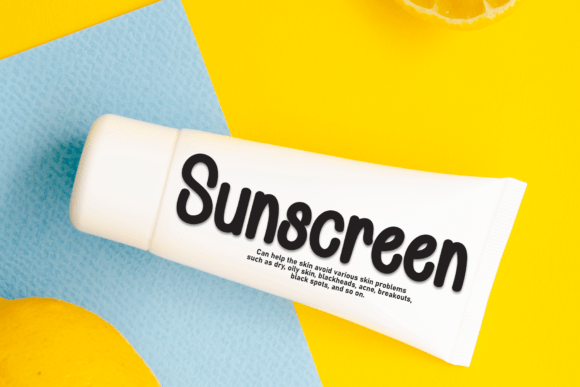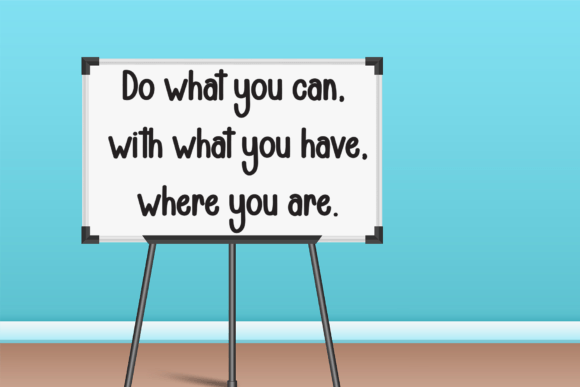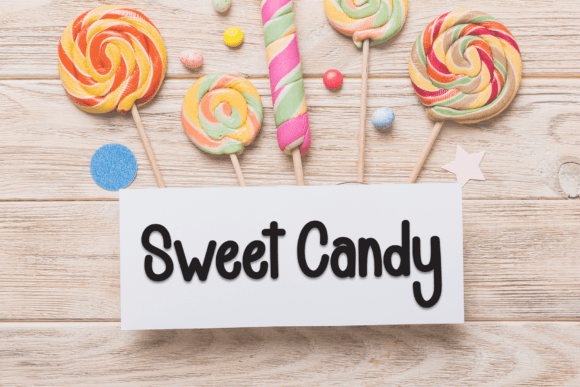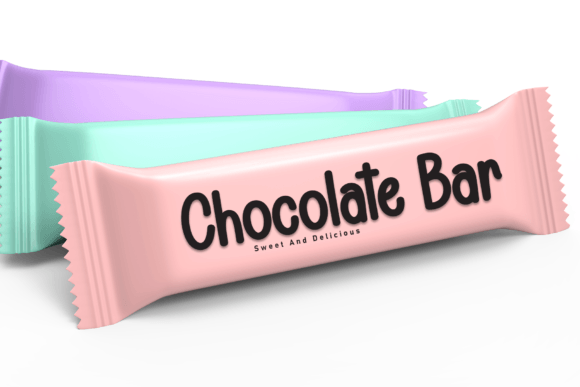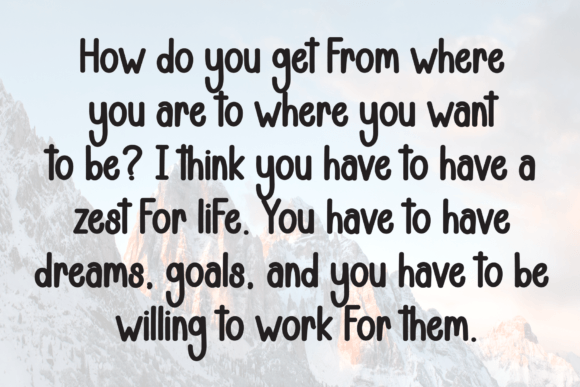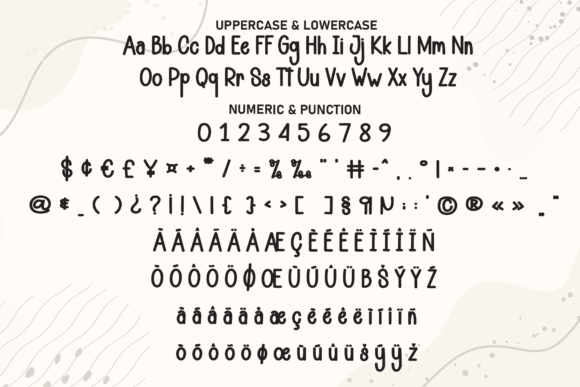
Introducing Happy Mockup Font: The Perfect Whimsical Addition to Your Designs
Are you tired of using the same old fonts in your creative projects? Do you want to add a touch of warmth, beauty, and whimsy to your designs? Look no further than Happy Mockup Font, a charming and affable handwritten display font that’s sure to bring a smile to your audience’s faces. With its delightful penmanship and sprinkle of fun, this enchanting font is perfect for designers and crafters who want to add a personal touch to their work.
The Perfect Font for Whimsical Designs
Happy Mockup Font is designed to add a touch of sweetness and whimsy to your designs. Its charming handwritten style is perfect for wedding invitations, greeting cards, and any other design that calls for an inviting and lively flair. Whether you’re a designer, crafter, or DIY enthusiast, this font is sure to bring your creations to life and captivate your audience.
Key Features of Happy Mockup Font
- Charming Handwritten Style: Happy Mockup Font features a delightful handwritten style that’s perfect for adding a personal touch to your designs.
- Whimsical and Fun: With its sprinkle of fun and dash of sweetness, this font is sure to add a touch of whimsy to your designs.
- Perfect for Wedding Invitations and Greeting Cards: Happy Mockup Font shines in settings like wedding invitations, greeting cards, and any other design that calls for an inviting and lively flair.
- Captivating and Engaging: This font’s delightful penmanship will not only captivate your audience but will also breathe life and personality into your creations.
- Wedding Invitations: Use Happy Mockup Font to create beautiful and whimsical wedding invitations that will set the tone for the big day.
- Greeting Cards: Add a personal touch to your greeting cards with Happy Mockup Font’s charming handwritten style.
- Social Media Graphics: Use Happy Mockup Font to create engaging and eye-catching social media graphics that will stand out from the crowd.
- Branding and Packaging: Add a touch of whimsy to your branding and packaging with Happy Mockup Font’s delightful penmanship.
Tips for Getting the Most Out of Happy Mockup Font
Here are a few tips for getting the most out of Happy Mockup Font:
- Pair it with Other Fonts: Happy Mockup Font pairs well with other fonts, so don’t be afraid to try pairing it with a bold font for added contrast.
- Use it to Add Emphasis: Use Happy Mockup Font to add emphasis to certain words or phrases in your design.
In conclusion, Happy Mockup Font is a charming and affable handwritten display font that’s perfect for designers and crafters who want to add a touch of whimsy to their designs. With its delightful penmanship and sprinkle of fun, this font is sure to bring your creations to life and captivate your audience. Whether you’re creating wedding invitations, greeting cards, or social media graphics, Happy Mockup Font is the perfect choice.